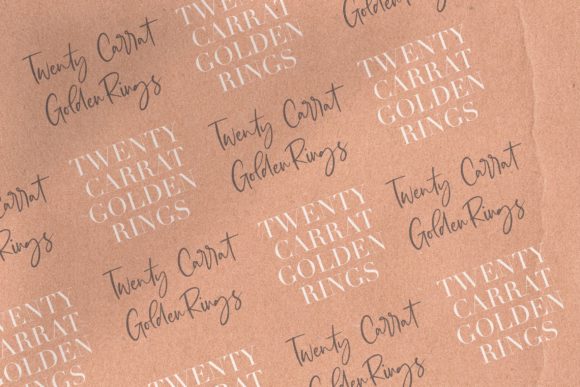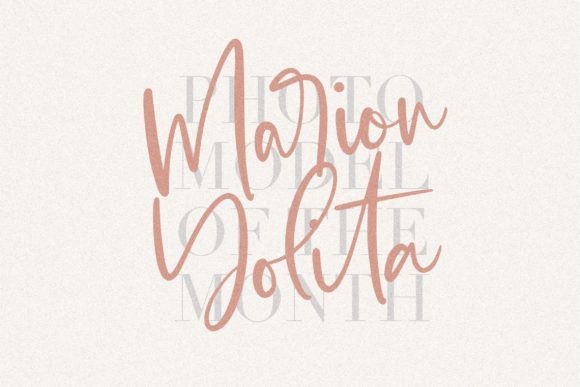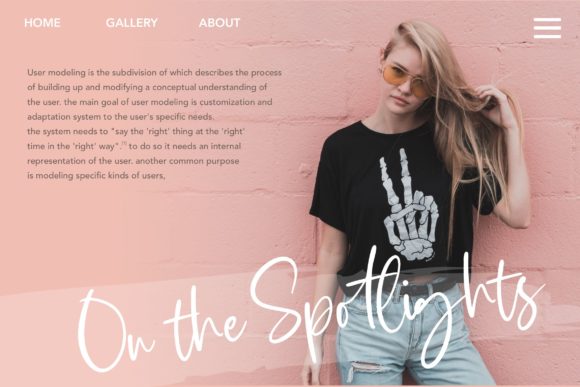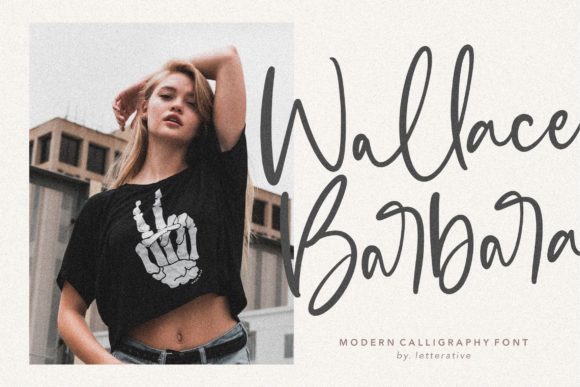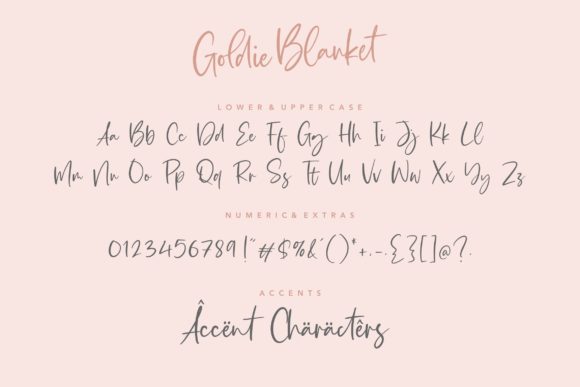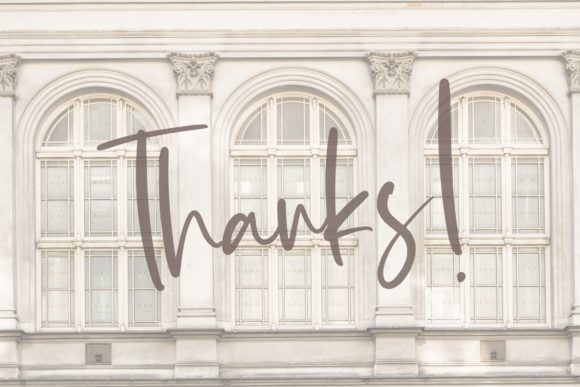
Introducing Goldie Blanket Font: A Delicate and Elegant Handwritten Masterpiece
Are you a designer or crafter looking for a font that exudes elegance and sophistication? Look no further than the Goldie Blanket Font, a delicate and elegant handwritten font that is sure to capture your heart. With its distinct and well-rounded letters, this font is a masterpiece that can elevate your designs to the next level.
What Makes Goldie Blanket Font So Special?
Goldie Blanket Font is a unique and versatile font that can be used for a wide range of design projects. Its incredibly versatile style makes it perfect for creating spectacular designs that are sure to impress. Whether you’re designing a logo, creating a social media graphic, or crafting a beautiful journal page, Goldie Blanket Font is the perfect choice.
One of the standout features of Goldie Blanket Font is its PUA (Private Use Area) encoding. This means that you can access all of the glyphs and swashes with ease, giving you complete creative control over your designs. With PUA encoding, you can easily insert special characters, ligatures, and other decorative elements to add an extra touch of elegance to your designs.
The Benefits of Using Goldie Blanket Font
So why should you choose Goldie Blanket Font for your design projects? Here are just a few benefits of using this beautiful font:
- Unique and Elegant Style: Goldie Blanket Font has a distinct and elegant style that is sure to set your designs apart from the crowd.
- Versatility: This font is incredibly versatile and can be used for a wide range of design projects, from logos and branding to social media graphics and crafting projects.
- Easy to Use: With PUA encoding, you can easily access all of the glyphs and swashes, making it easy to create beautiful designs.
- High-Quality Design: Goldie Blanket Font is a high-quality font that is designed to look beautiful and elegant in any design.
How to Use Goldie Blanket Font in Your Designs
Using Goldie Blanket Font in your designs is easy. Here are a few tips to get you started:
- Pair it with Other Fonts: Goldie Blanket Font pairs beautifully with other fonts, so don’t be afraid to experiment with different combinations.
- Use it for Headings and Titles: This font is perfect for headings and titles, where you want to make a statement and add some elegance to your design.
- Add Swashes and Glyphs: With PUA encoding, you can easily add swashes and glyphs to your design to add an extra touch of elegance.
- Experiment with Colors: Goldie Blanket Font looks beautiful in a range of colors, so don’t be afraid to experiment and find the perfect color for your design.
Who is Goldie Blanket Font Perfect For?
Goldie Blanket Font is perfect for designers and crafters who are looking for a unique and elegant font to add to their collection. This font is ideal for:
- Graphic Designers: Goldie Blanket Font is perfect for graphic designers who are looking for a font to use in their designs, from logos and branding to social media graphics and more.
- Crafters: This font is also perfect for crafters who love to create beautiful journal pages, cards, and other handmade projects.
- Small Business Owners: If you’re a small business owner looking for a font to use in your branding, Goldie Blanket Font is a great choice.
In conclusion, Goldie Blanket Font is a delicate and elegant handwritten font that is sure to capture your heart. With its distinct and well-rounded letters, incredibly versatile style, and PUA encoding, this font is a masterpiece that can elevate your designs to the next level. Whether you’re a designer, crafter, or small business owner, Goldie Blanket Font is the perfect choice for anyone looking for a unique and elegant font to add to their collection.